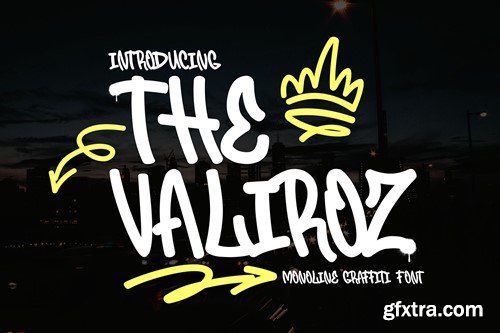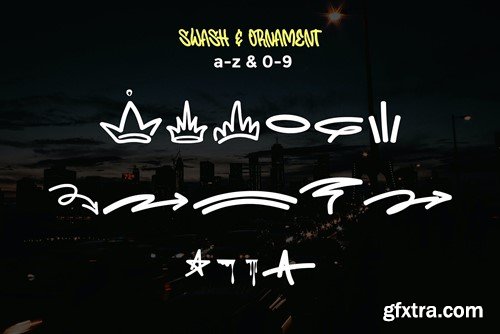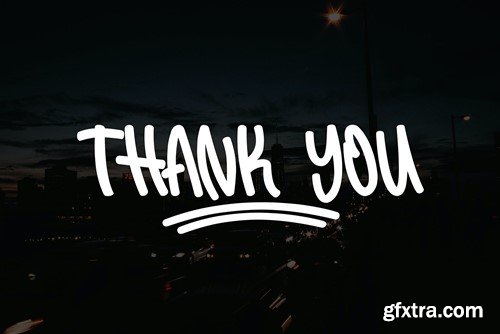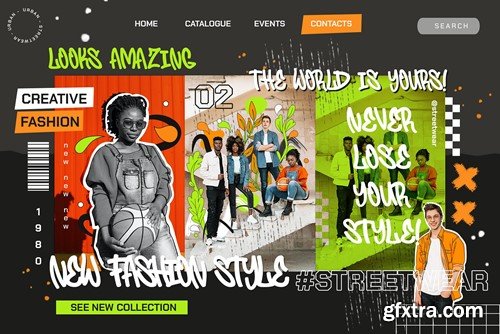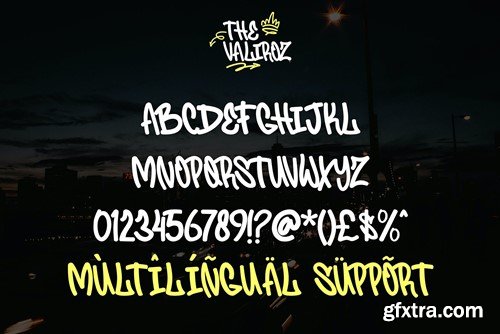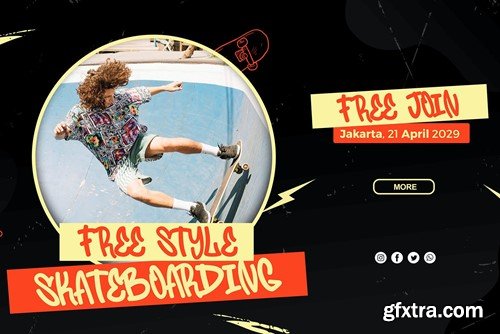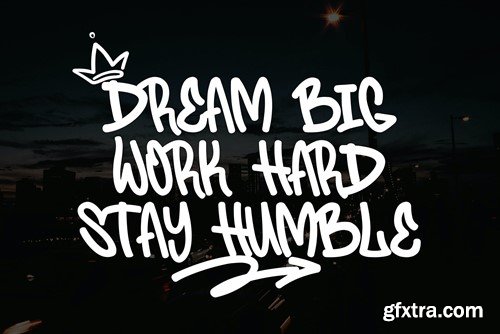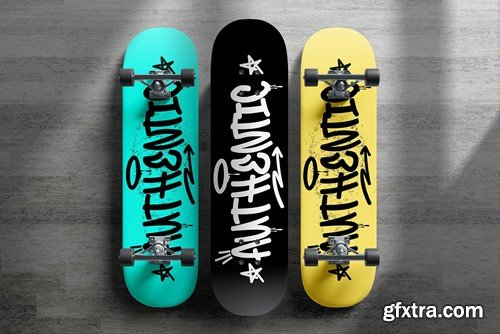
瓦尔里奥兹 - 单一线条涂鸦字体 5X4WQ4B
Graffiti meets elegance with The Valiroz, the monoline font that redefines the urban art scene. More than just a font, The Valiroz is a fusion of edgy street style and refined design, where each letter embodies the spirit of rebellion with a touch of sophisticated flair. Crafted with precision, every stroke in The Valiroz tells a story of expressive rebellion, capturing the raw energy of graffiti in a sleek, monoline aesthetic. Whether you're designing for posters or any project that demands an eclectic and stylish vibe, this font ensures your words become an artistic expression of urban sophistication. The Valiroz isn't just a font; it's a statement, a visual masterpiece that turns your designs into a canvas of monoline graffiti art. Elevate your creations with the dynamic and refined allure of The Valiroz – because true style knows no boundaries! File Included: Features: That's it! If you have any questions don't hesitate to ask! Stay Classy!